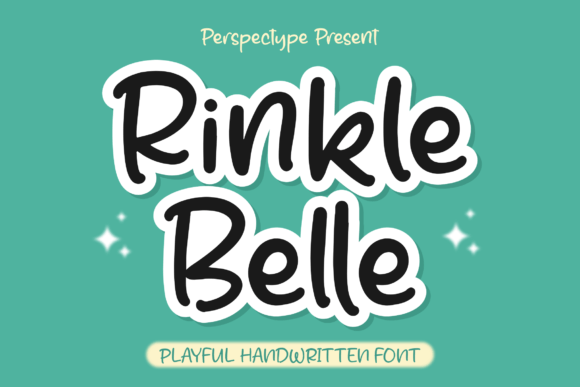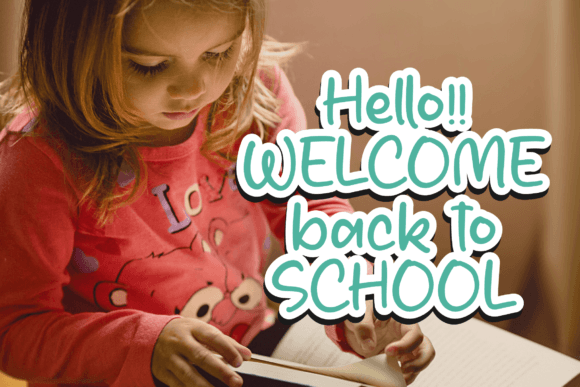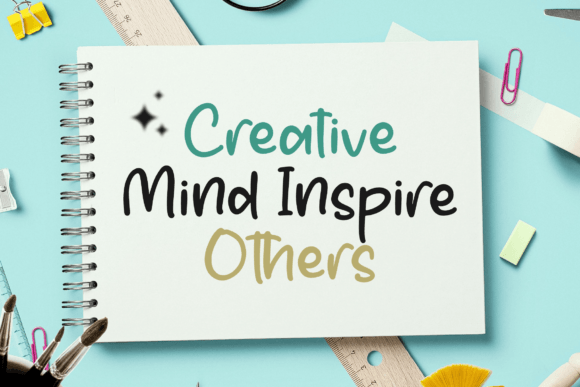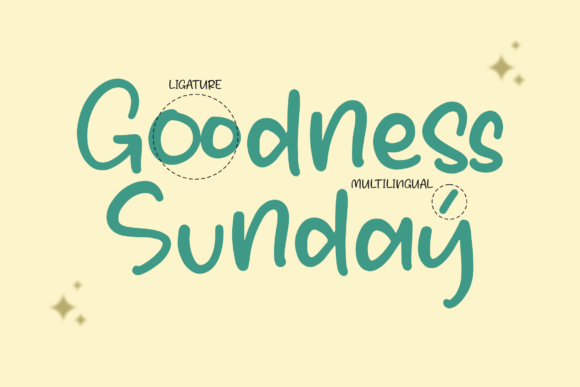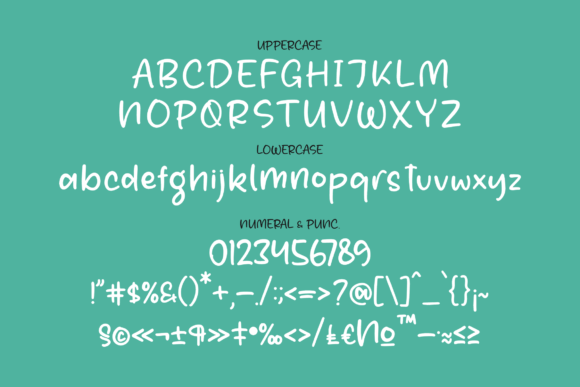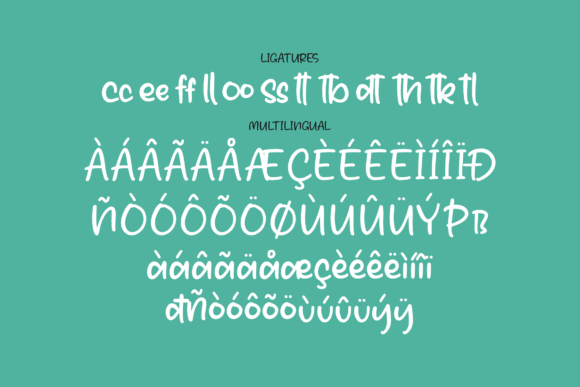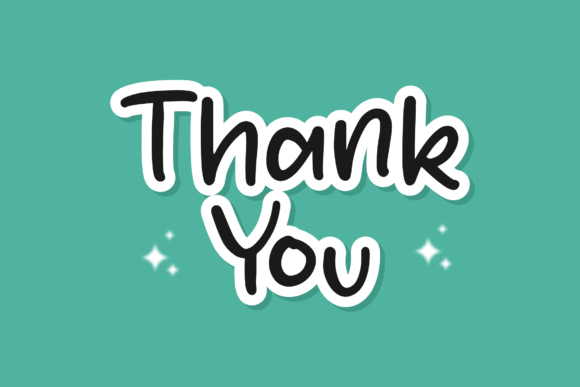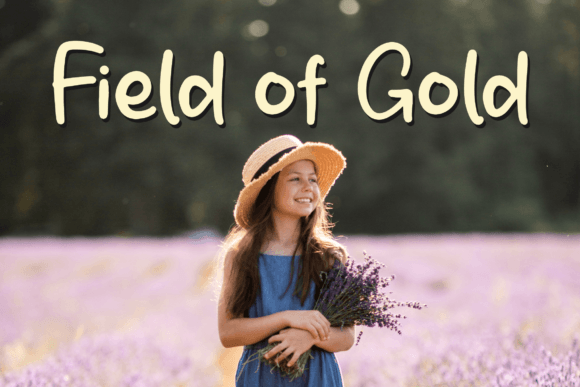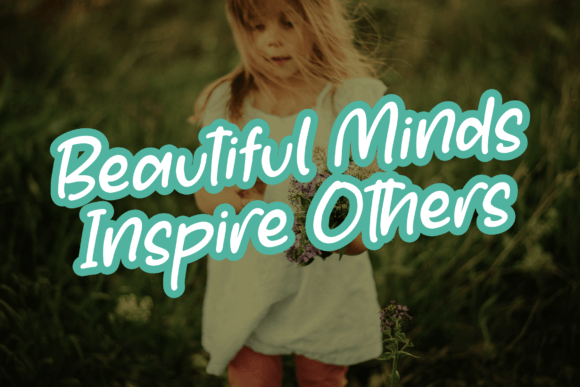
Rinkle Belle bursts onto the scene as a fun and playful handwritten font, bringing a sense of joy and whimsy to your designs. Whether you’re working on cartoon-related projects, children’s games, quotes, titles, brand names, book covers, posters, or any creation that calls for a touch of lightheartedness, Rinkle Belle stands out as an excellent choice.
The playful nature of Rinkle Belle makes it a perfect fit for a variety of creative applications. Its handwritten style exudes a friendly and approachable vibe, creating a visual language that resonates particularly well with cartoon-themed or child-oriented designs. The font becomes a versatile tool for infusing a sense of joy and playfulness into your projects.
Whether you’re crafting engaging titles for children’s books or designing posters for lively events, Rinkle Belle becomes a delightful companion that adds character and vibrancy. Its playful strokes and unique personality make it a great choice for projects that require a touch of whimsy and creativity.
In conclusion, Rinkle Belle is more than just a font; it’s a source of playfulness and joy. Whether you’re a designer working on professional projects or an enthusiast seeking to inject fun into your creations, let Rinkle Belle be the font that brings a smile to your audience. Embrace its playful spirit, and watch as it transforms any design into a lively and delightful creation.